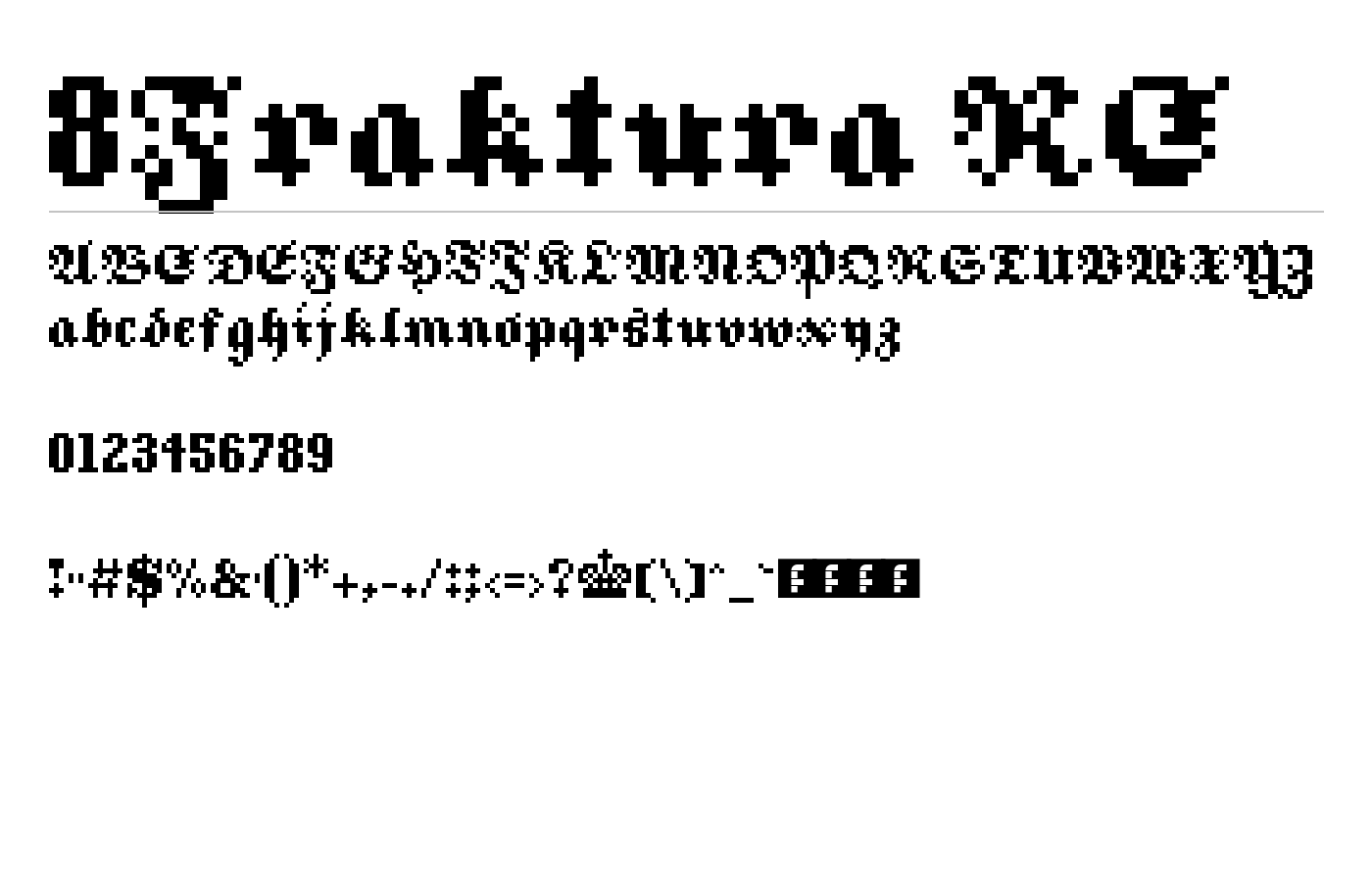
8Fraktura RC is a pixelated blackletter font with a vintage Gothic style that evokes a digital medieval atmosphere. Its bold weight and blocky, low-resolution appearance make it ideal for retro-themed designs, video game art, or unique display uses where a mix of historic charm and pixel art is desired. This font stands out in logos, posters, or branding that seeks an edgy, old-school pixel aesthetic.
8Fraktura RC Font
About 8Fraktura RC Font
| Font family | 8Fraktura RC Font |
| Designer | rilencavy |